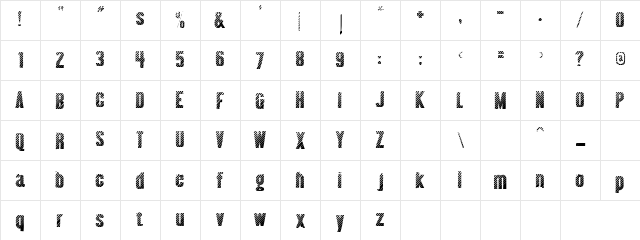
Engrave Regular
Design Context for Engrave Typeface
Engrave is a composed and adaptable typeface that performs quietly and consistently across a wide range of design contexts.